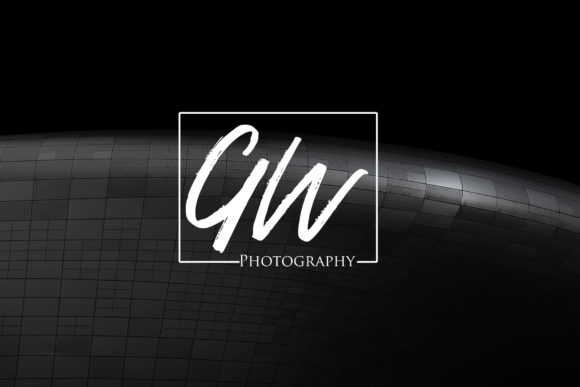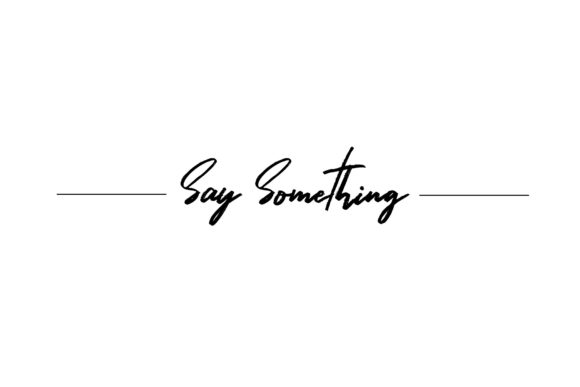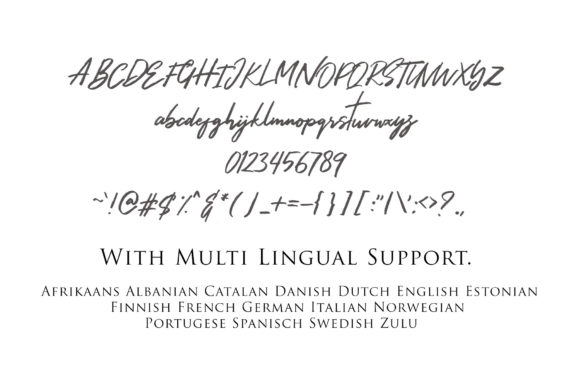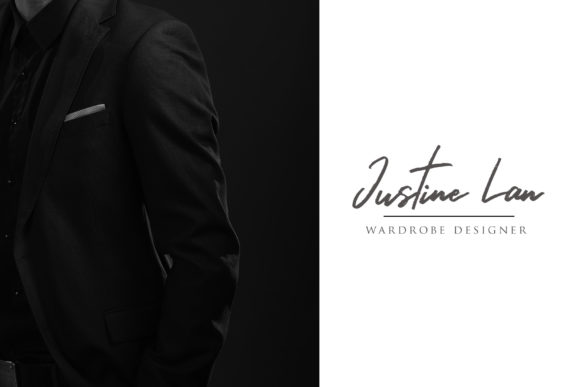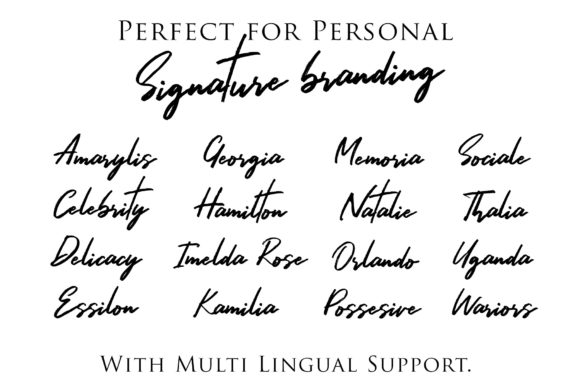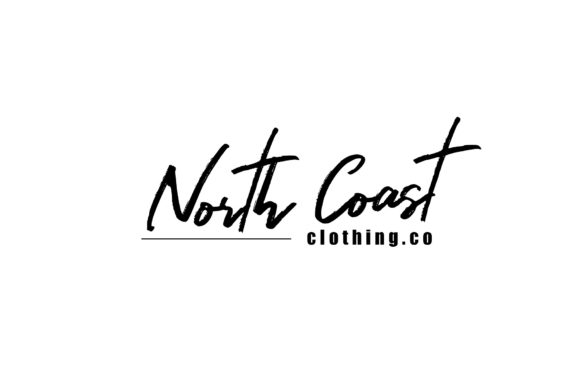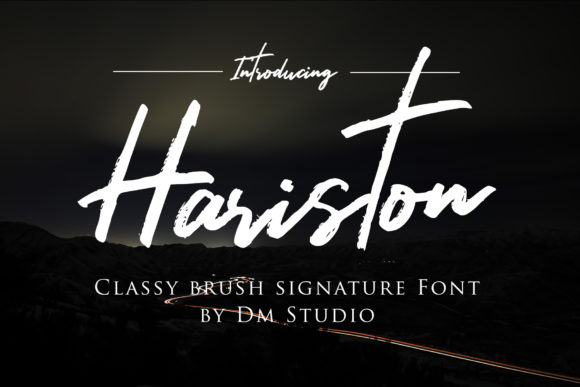
Introducing Hariston Font: The Casual and Light Handwritten Font with a Smart Feel
In the world of typography, fonts play a crucial role in making or breaking a design project. A well-chosen font can elevate the aesthetic appeal of a project, while a poorly chosen one can detract from it. For designers and crafters looking for a unique and charming font to add to their collection, Hariston Font is an excellent choice. In this article, we’ll explore the features and benefits of Hariston Font, and why it’s a must-have for any design project.
What is Hariston Font?
Hariston Font is a casual and light handwritten font with a smart feel. Its elegant and fluid strokes make it perfect for a variety of design projects, from branding and advertising to packaging and digital media. The font’s unique charm lies in its effortless and spontaneous feel, which gives it a personal and approachable touch.
Key Features of Hariston Font
• Casual and Light: Hariston Font has a light and airy feel that makes it perfect for designs that require a subtle touch.
• Handwritten: The font’s handwritten style gives it a personal and human touch that sets it apart from more formal fonts.
• Smart Feel: Despite its casual nature, Hariston Font has a smart and sophisticated feel that makes it suitable for a wide range of design projects.
• Unique Charm: The font’s unique charm lies in its ability to add a touch of personality to any design project.
Benefits of Using Hariston Font
So, why should designers and crafters choose Hariston Font for their projects? Here are just a few benefits of using this versatile font:
• Versatility: Hariston Font is suitable for a wide range of design projects, from branding and advertising to packaging and digital media.
• Ease of Use: The font is easy to read and works well in both large and small sizes, making it perfect for body text or headlines.
• Unique Style: Hariston Font’s unique style sets it apart from more traditional fonts, making it perfect for designers looking to add a touch of personality to their projects.
How to Use Hariston Font in Your Design Projects
Using Hariston Font in your design projects is easy. Here are a few tips to get you started:
• Pair it with Other Fonts: Hariston Font pairs well with other fonts, making it easy to create visually appealing combinations.
• Use it for Headlines: The font’s bold and playful style makes it perfect for headlines and titles.
• Experiment with Colors: Hariston Font works well with a variety of colors, so don’t be afraid to experiment and find the perfect combination for your project.
In conclusion, Hariston Font is a versatile and charming font that is perfect for designers and crafters looking to add a unique touch to their projects. With its casual and light handwritten style, smart feel, and ease of use, Hariston Font is a must-have for any design project. Whether you’re working on a branding campaign, packaging design, or digital media project, Hariston Font is sure to impress.